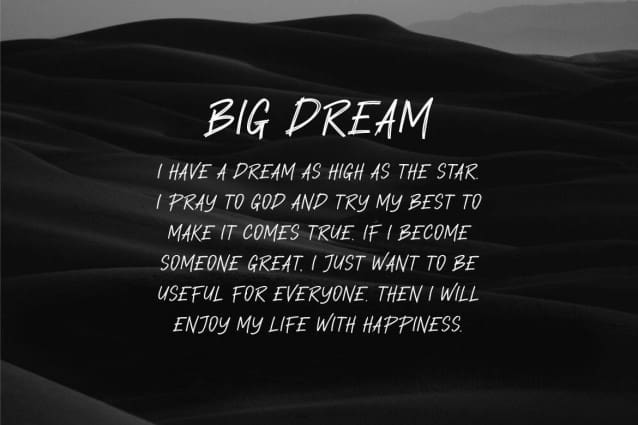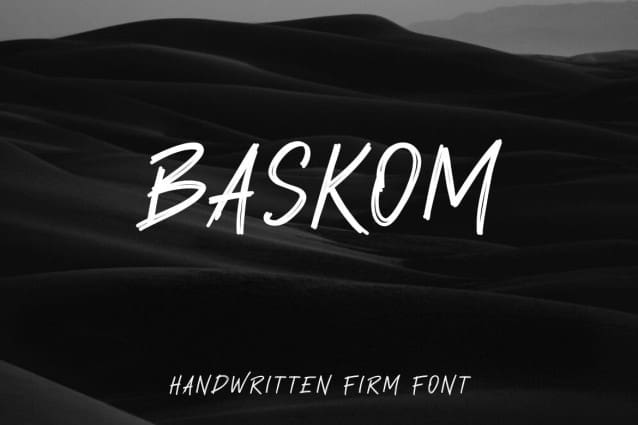
Baskom Brush Font
Baskom Brush Font is a handwritten font. Baskom can be used in any works such as comics, posters, schools, flyers, book titles, advertisements, social media content, logos and